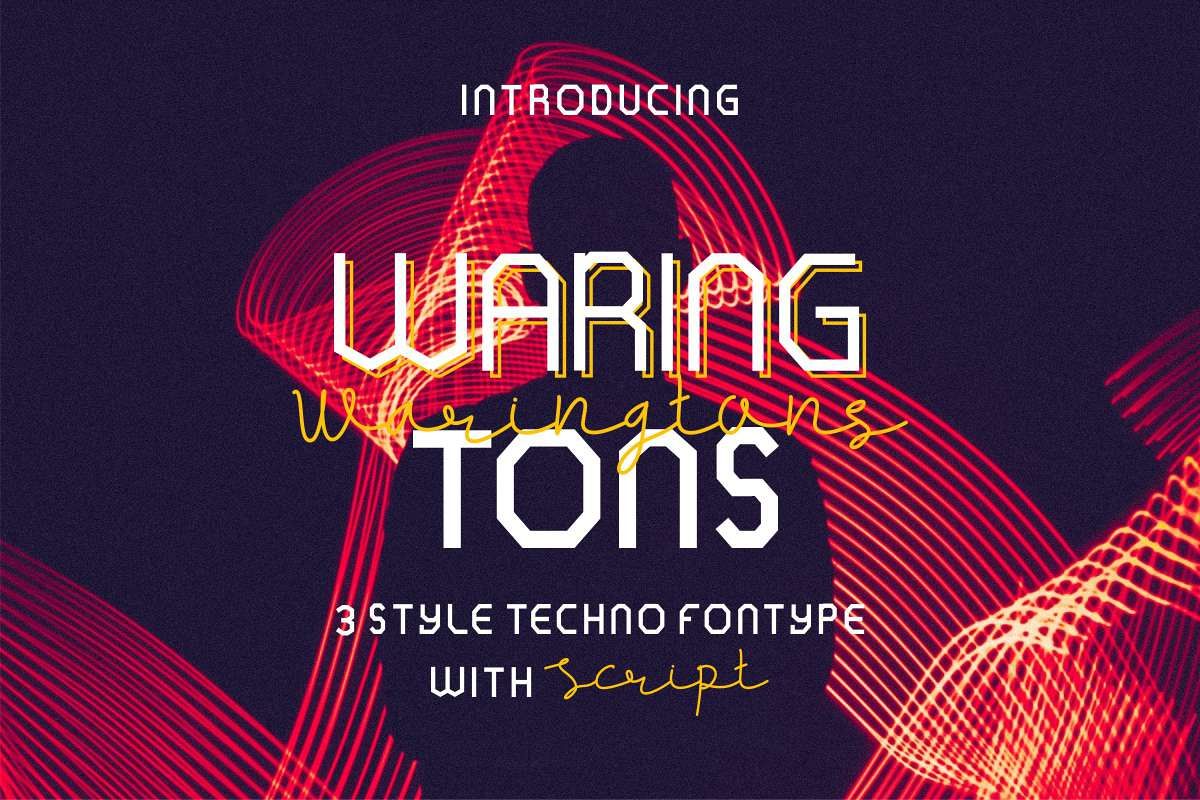
WARINGTONS
Please meet our newest font : WARINGTONS
This is a new font family consist of 4 fonts styles : Regular, Bold, Outline and Handwritten script.  On the package You will get :